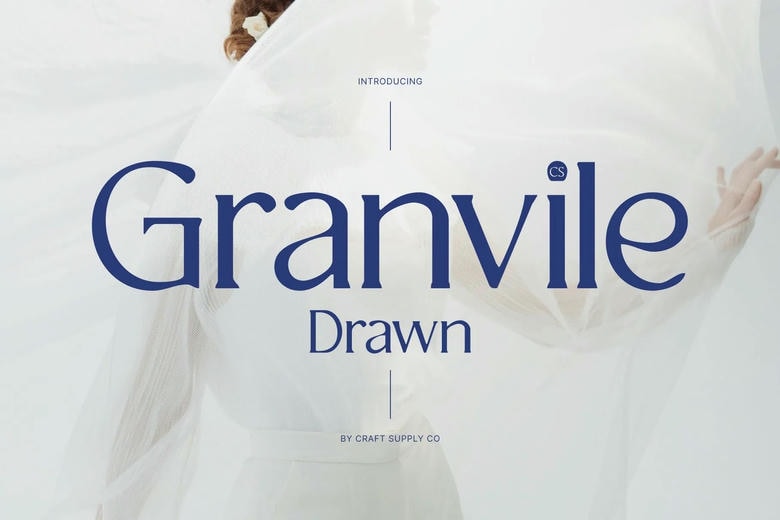
CS Granvile Drawn Font – This is a luxurious serif font with a classic elegance that blends the smoothness of a hand drawn font with a sense of charm. Each letter has a slight texture and irregularities drawn, giving the font a certain character, without losing timeless sophistication. The artistic drawn effect takes it to a higher level, producing a unique and hand-made look for the modern and luxury designs.
Elegant Freizes toward a unique presence. The lines and curves are delicately modelled and the differences in stroke bring the visual effects and feel. They give it class and composure, as its finely adjusted proportions offer balance and poise, so that text becomes graceful and authoritative. Such a mix of classic form and manual feel provides a font that will take over and at the same time not lose its warmth and charisma.
Perfect for Luxury Projects and Editorial Projects Ideal for fashion magazines, high-end branding, premium packaging, and editorial layouts, this font is one of exclusivity and elegance. Its art details add sophistication and subtle personality to enhance logos, headlines and creative compositions with a refined handcrafted touch.
A Traditional Scion of Innovation. This font is a blend of elegance and modernism by combining classical serif types and drawn textures that present the beauty of time. This font provides a progressive, sophisticated look ideal in the hands of the designer who wants to explore and find beauty, craftsmanship, and a distinct and artistic style in any work.
CS Granvile Drawn Serif Font